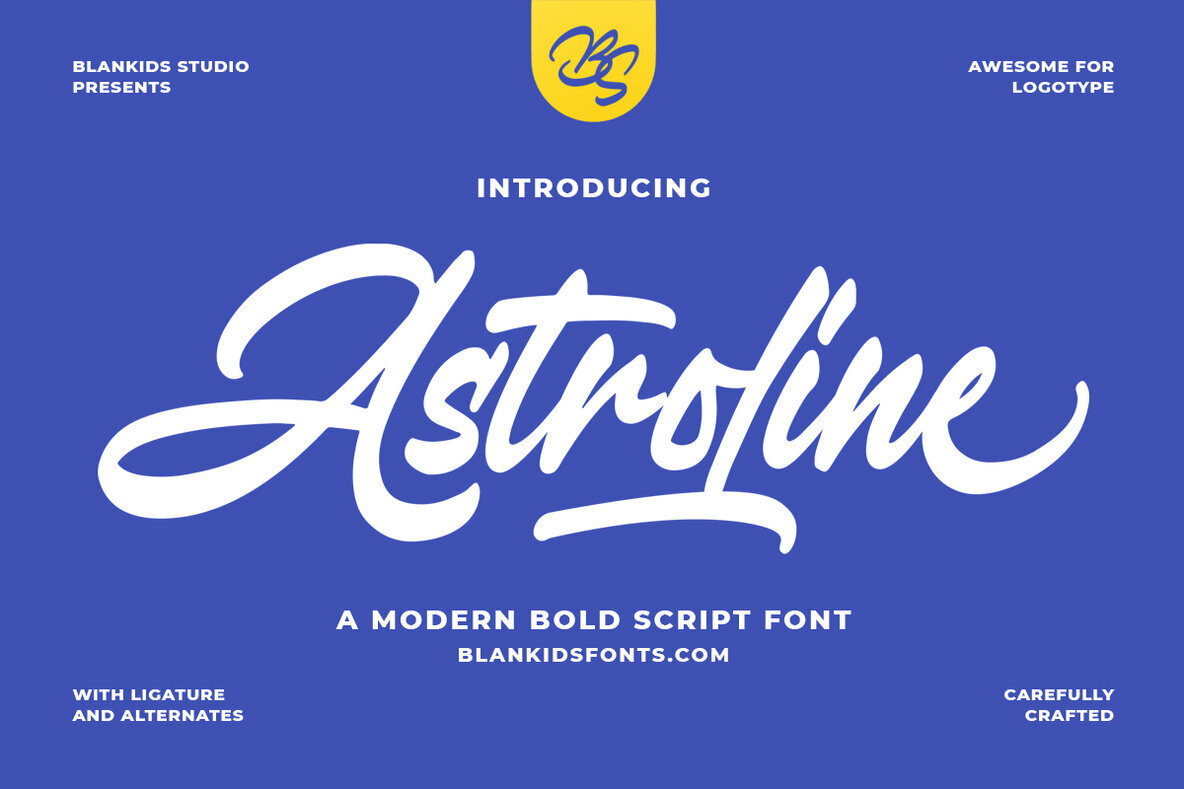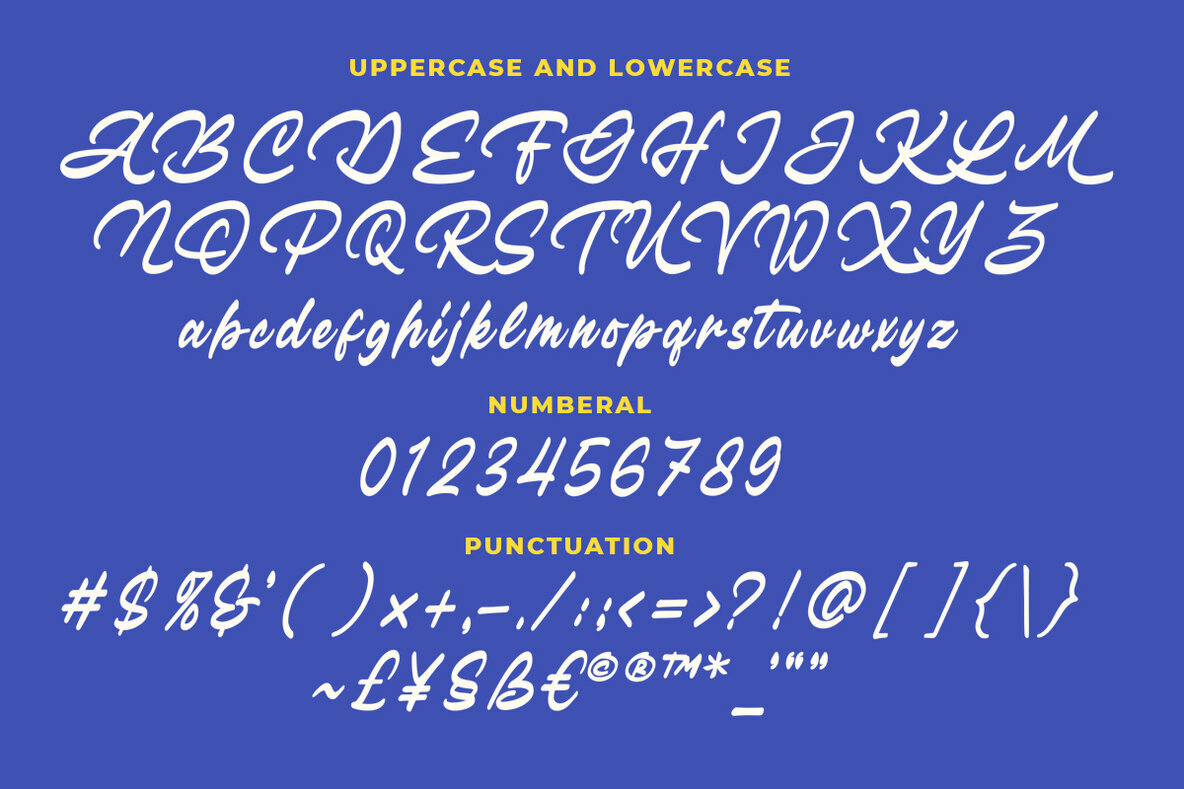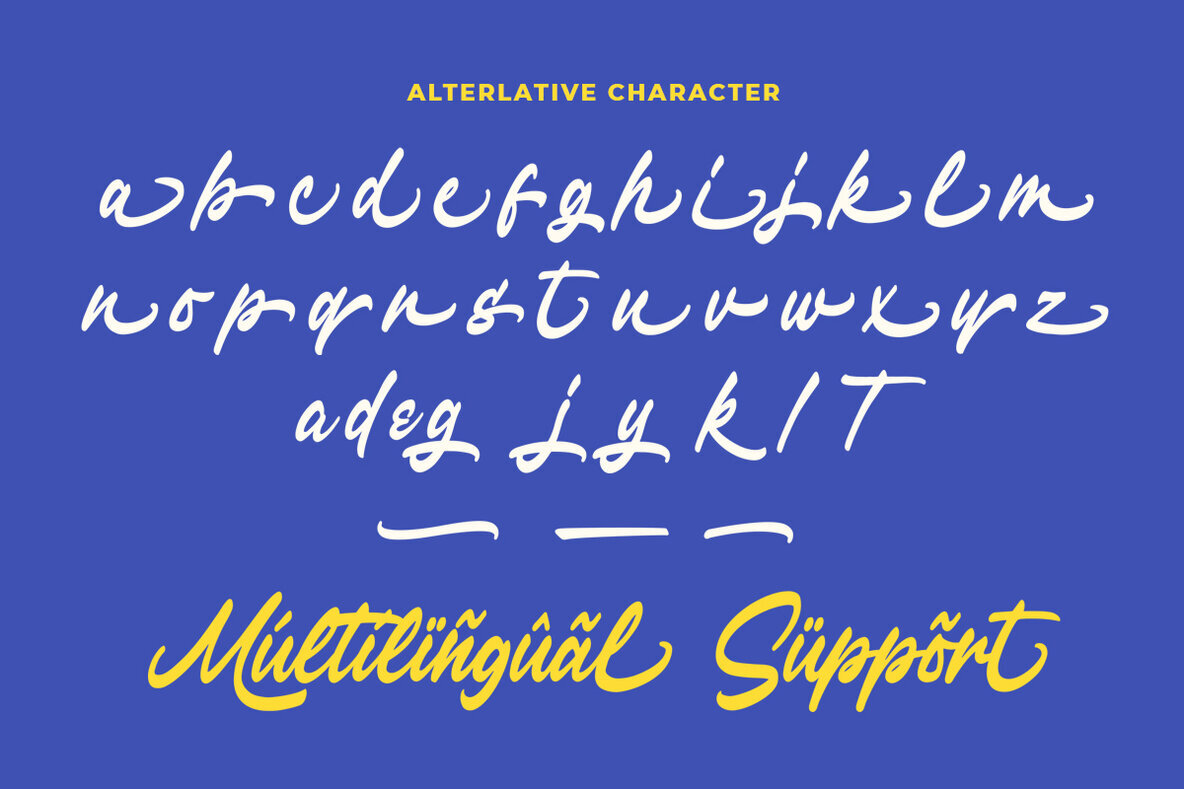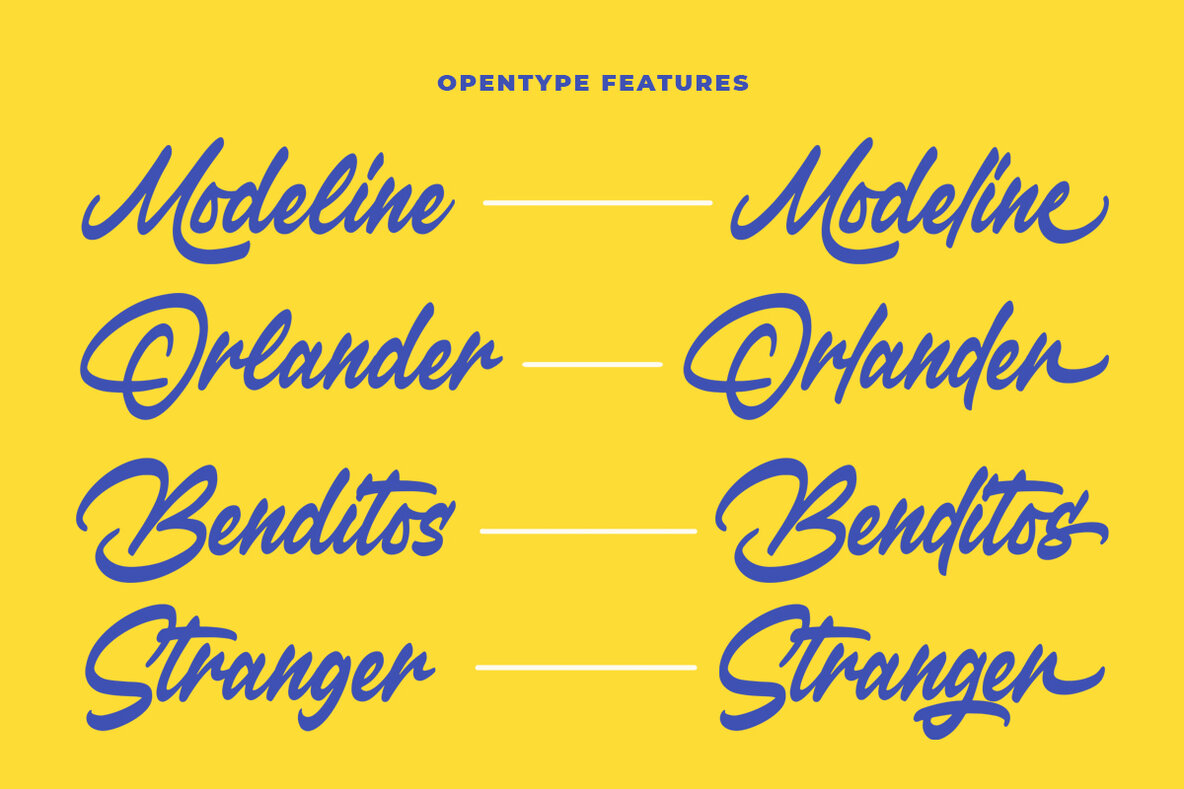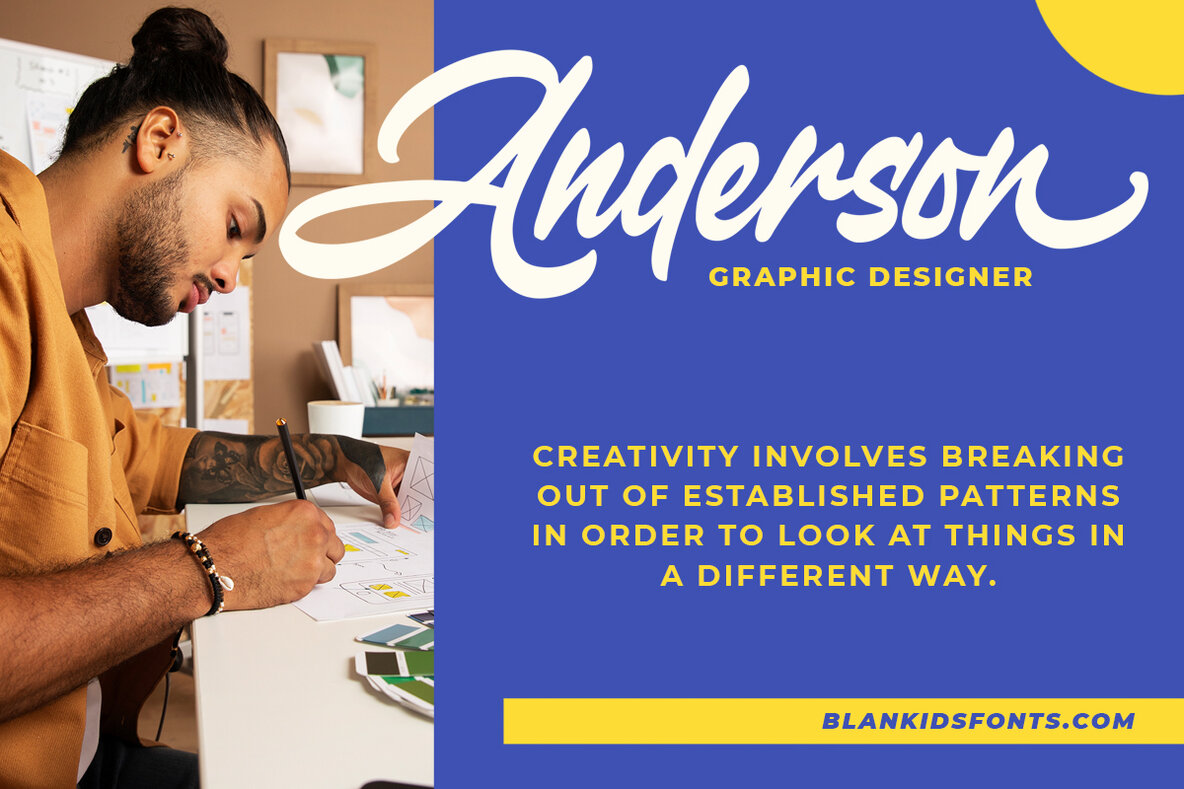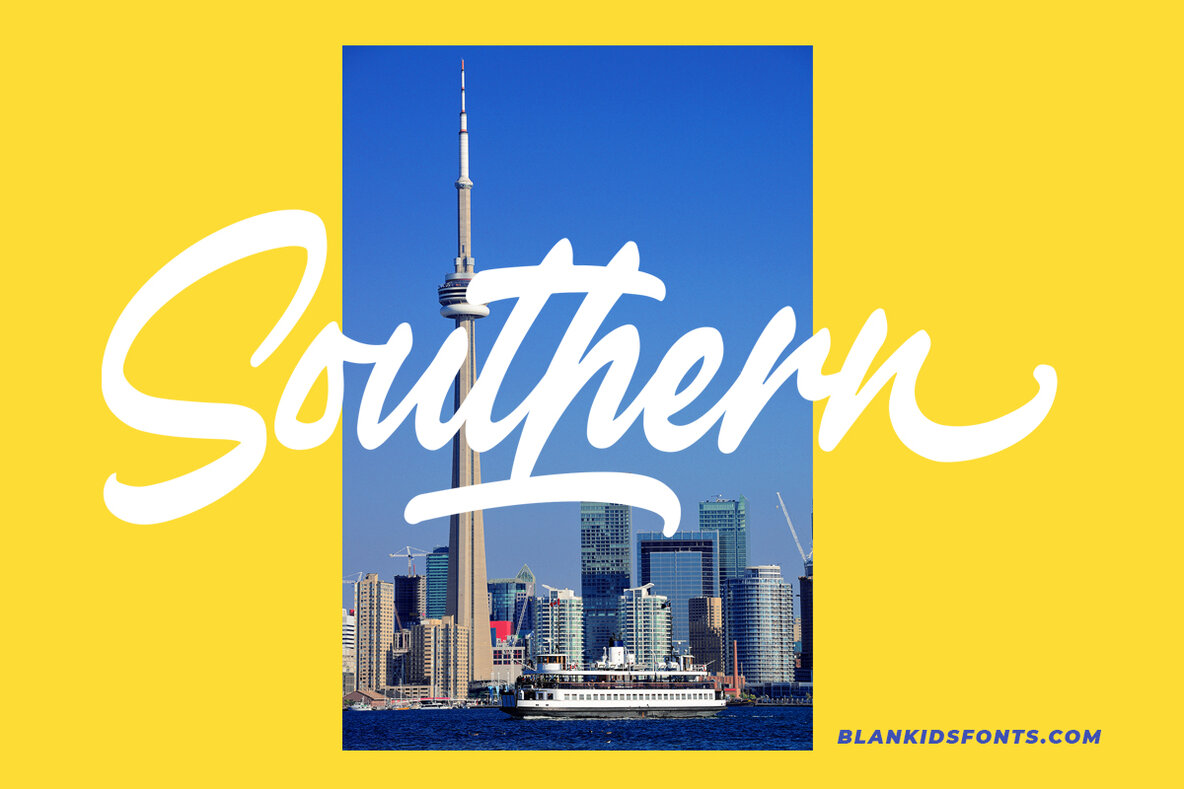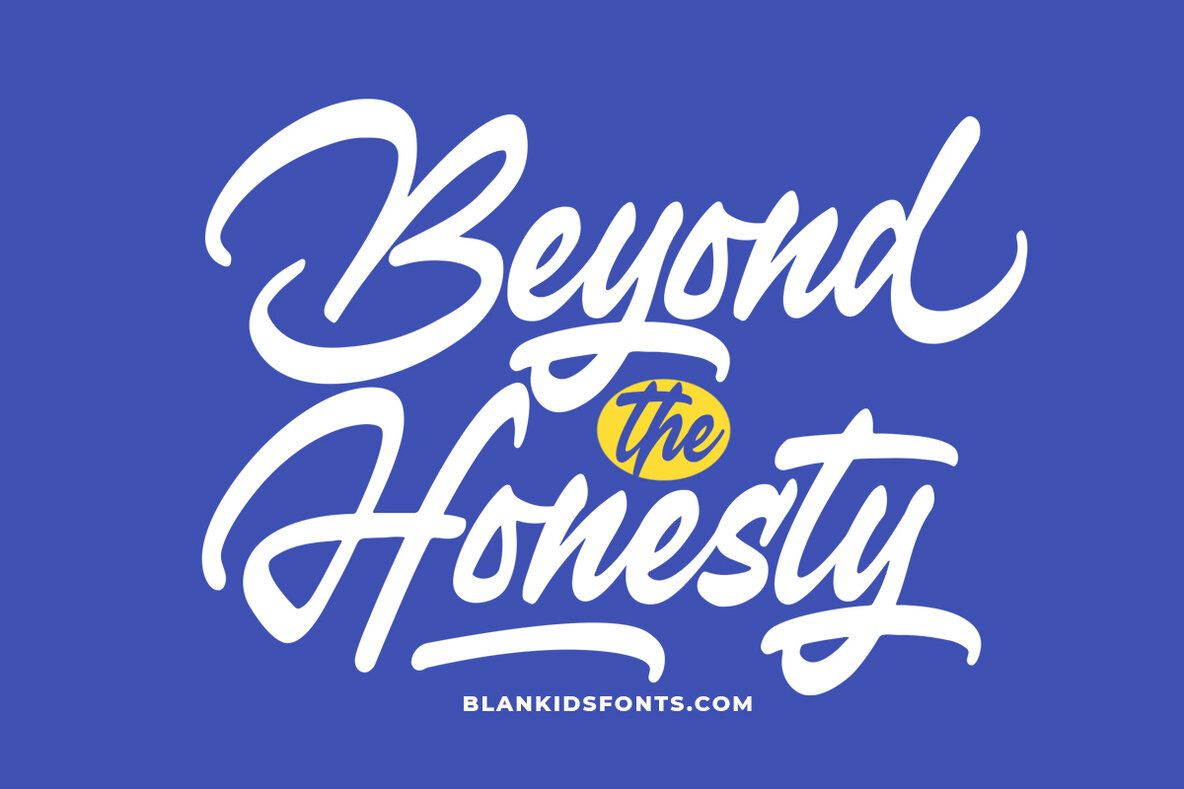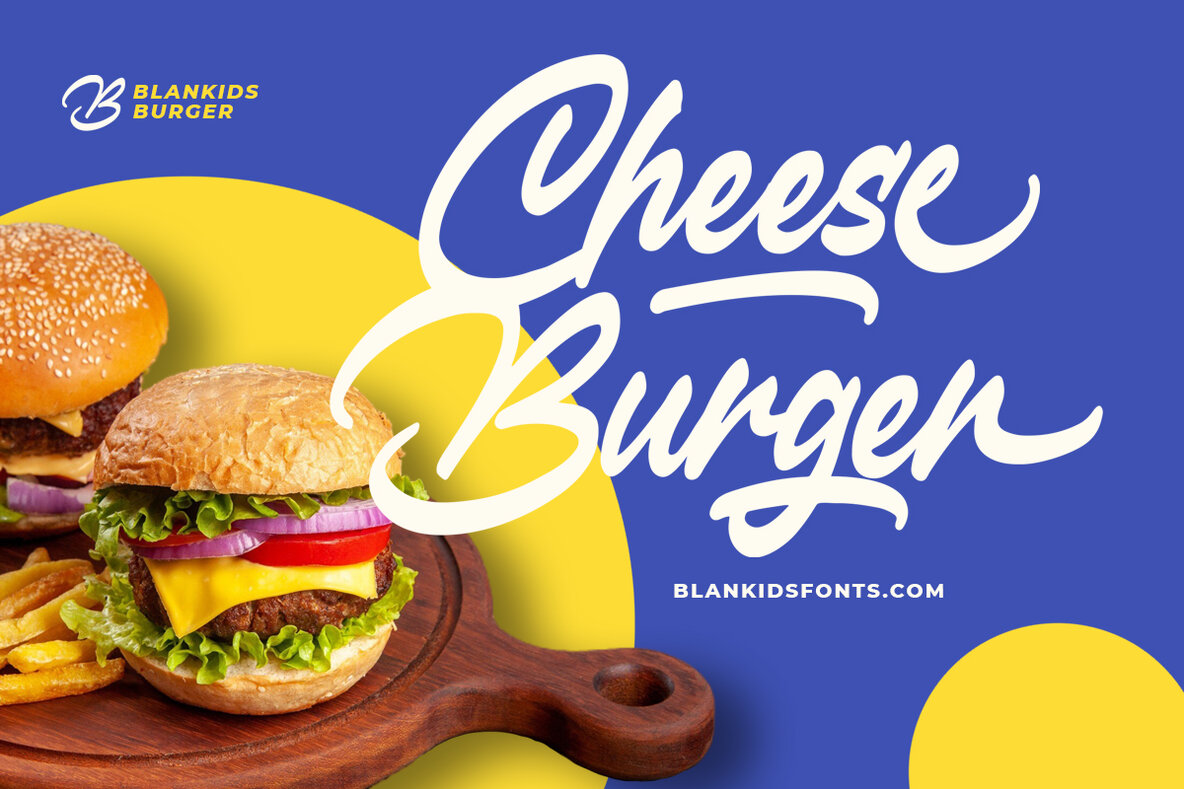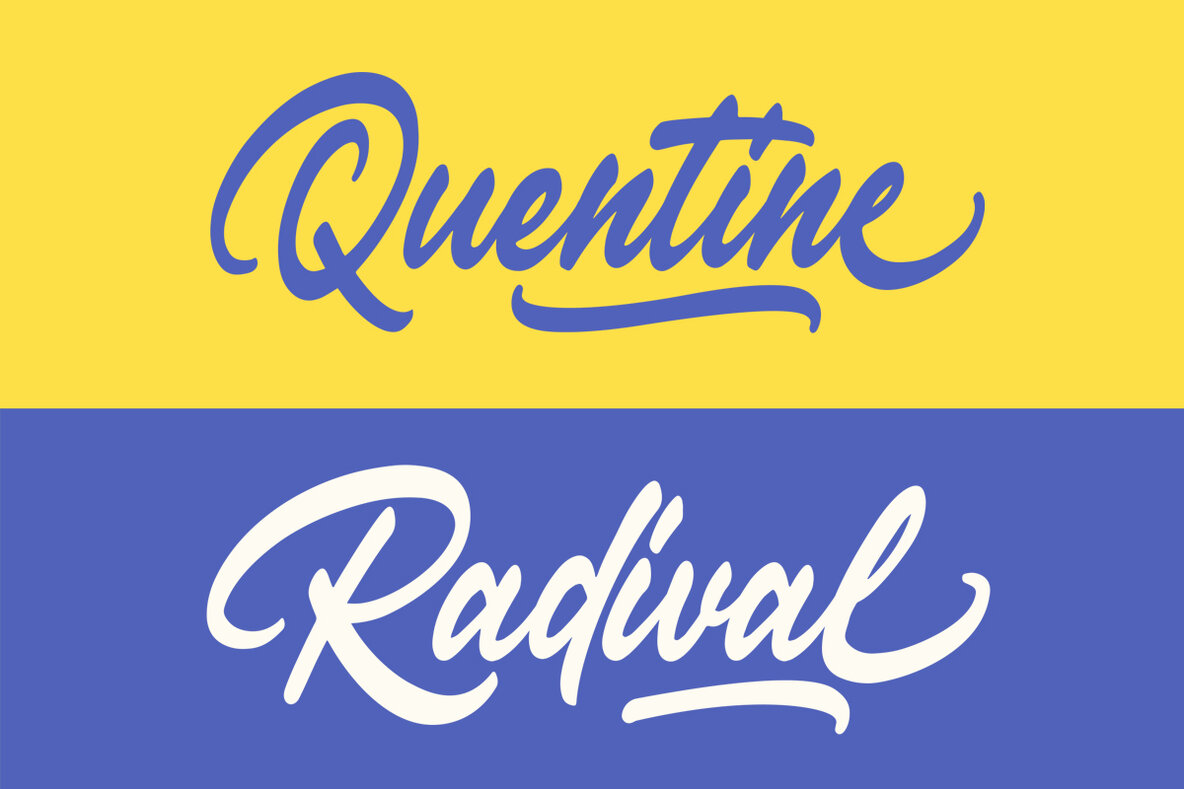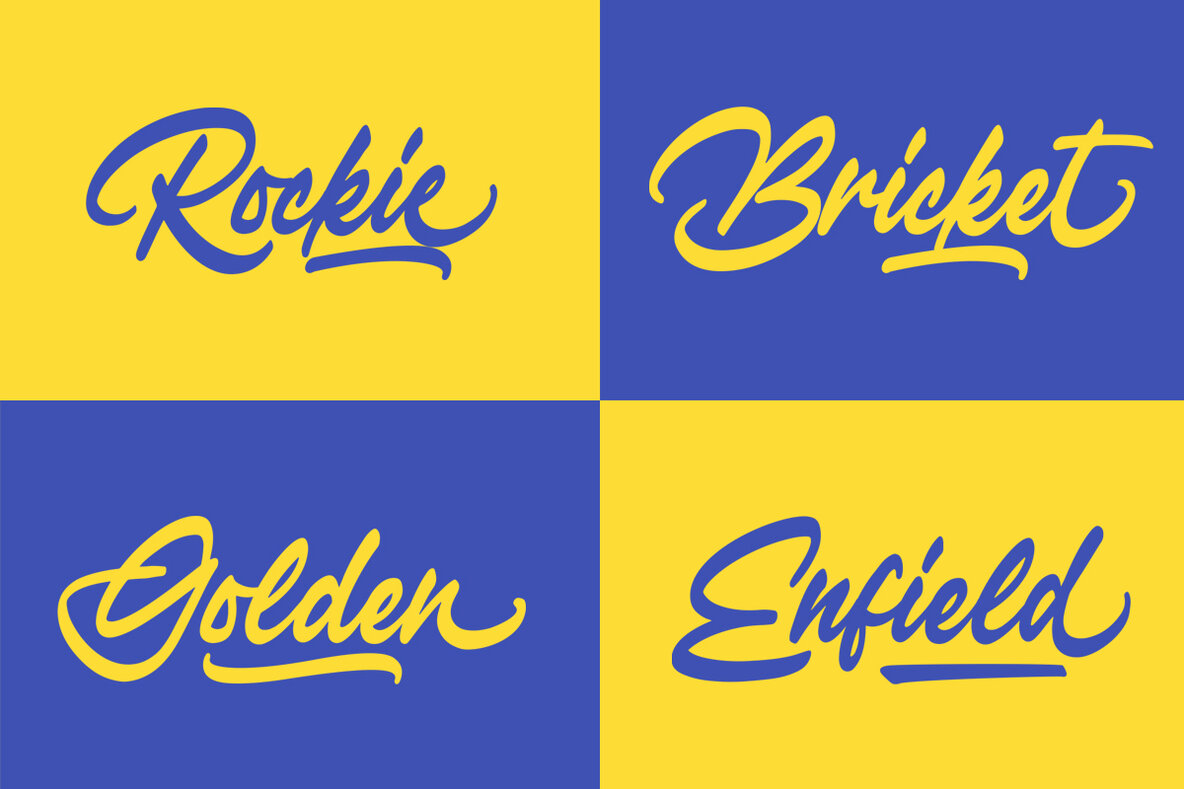
Astroline Font
Astroline
Astroline is a modern bold script font crafted by Blankids Studio, designed to enhance your professional projects. From logos and comics to watermarks and promotional materials, this font provides a clean script style that suits an array of branding needs. It is available in a regular style, ensuring a sleek and polished finish to your designs. Features: Astroline's unique style is perfect for those looking to inject modern flair into their projects, offering both functionality and aesthetic appeal. Suitable for digital and print applications, it's a valuable addition to any designer's toolkit.Astroline: Modern Bold Script for Versatile Branding